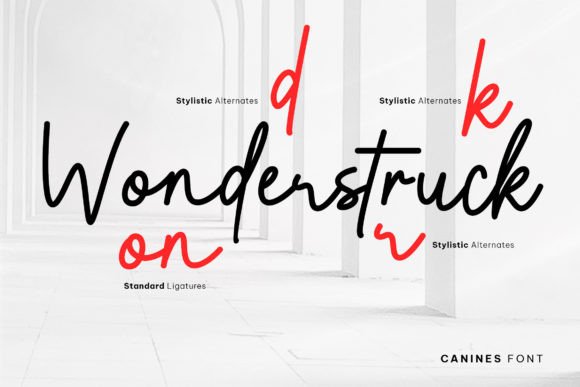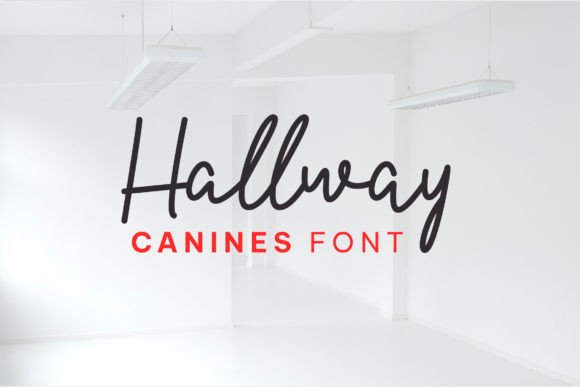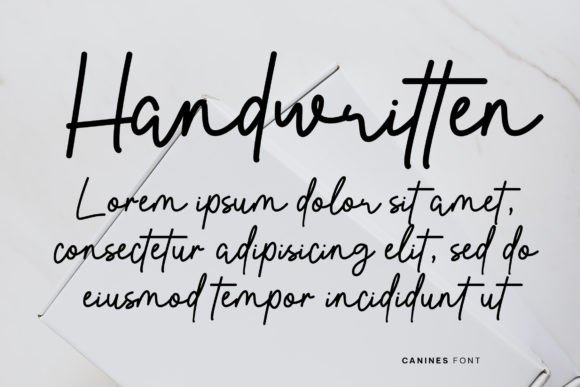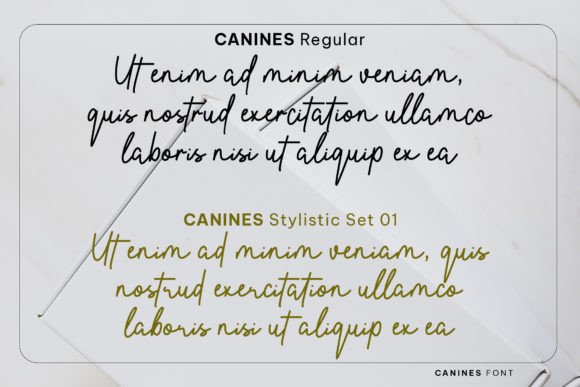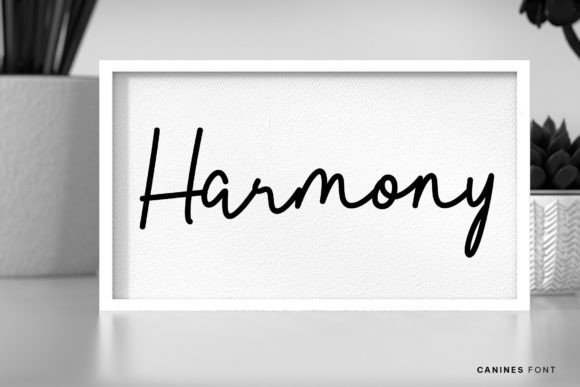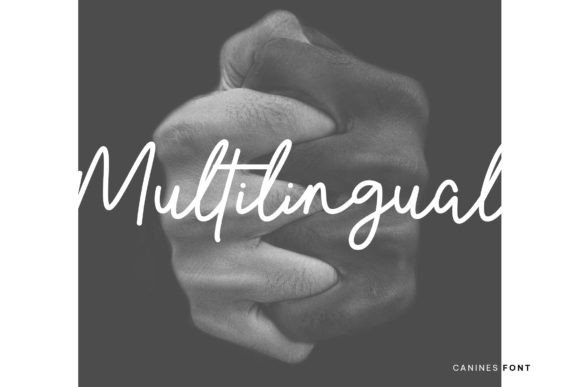
Introducing Canines Font: The Ultimate Modern Script Font for Designers and Crafters
Are you tired of using the same old fonts for your designs and crafts? Look no further! Canines Font is here to revolutionize your creative projects with its modern, monoline, and stylish script design. This versatile font is perfect for a wide range of applications, from digital design and presentations to crafting and making greeting cards.
What Makes Canines Font So Special?
Canines Font is a cool and modern script font that boasts a unique monoline style, making it stand out from the crowd. Its sleek and elegant design ensures that your projects will look professional and visually appealing. Whether you’re a designer, crafter, or simply someone who loves to create, Canines Font has the potential to become your go-to font for all occasions.
One of the best features of Canines Font is that it’s PUA (Private Use Area) encoded. This means that you can access all of the glyphs and swashes with ease, giving you complete creative control over your projects. With PUA encoding, you can effortlessly navigate through the font’s extensive character set, including alternative letters, ligatures, and decorative swashes.
Canines Font is an incredibly versatile font that can be used for a wide range of creative projects. Here are just a few ideas to get you started:
- Digital Design: Use Canines Font to create stunning digital art, social media graphics, and website headers.
- Crafts: Add a personal touch to your handmade crafts, such as scrapbooking, card making, and journaling.
- Presentations: Elevate your presentations with a modern and stylish font that’s sure to impress.
- Greeting Cards: Create beautiful and unique greeting cards for special occasions, such as birthdays, weddings, and holidays.
Why Choose Canines Font?
With so many fonts available, why choose Canines Font? Here are just a few reasons why designers and crafters love this font:
- Unique Design: Canines Font boasts a modern and stylish design that’s sure to make your projects stand out.
- Ease of Use: With PUA encoding, accessing glyphs and swashes is easy, making it simple to get creative.
- Versatility: Canines Font can be used for a wide range of projects, from digital design to crafting.
- Professional Results: With Canines Font, you can achieve professional-looking results, even if you’re not a seasoned designer.
Tips and Tricks for Getting the Most Out of Canines Font
To help you get the most out of Canines Font, here are a few tips and tricks:
- Experiment with Swashes: Use the font’s decorative swashes to add a touch of elegance to your projects.
- Mix and Match: Combine Canines Font with other fonts to create a unique and eye-catching design.
- Play with Size: Experiment with different font sizes to add visual interest to your projects.
- Don’t Be Afraid to Get Creative: With Canines Font, the possibilities are endless, so don’t be afraid to try new things and push the creative boundaries.
In conclusion, Canines Font is a modern, monoline, and stylish script font that’s perfect for designers and crafters. With its PUA encoding, unique design, and versatility, it’s an excellent addition to any creative toolkit. Whether you’re working on digital design, crafts, presentations, or greeting cards, Canines Font is sure to become your go-to font for all occasions. So why wait? Get creative with Canines Font today and take your projects to the next level!